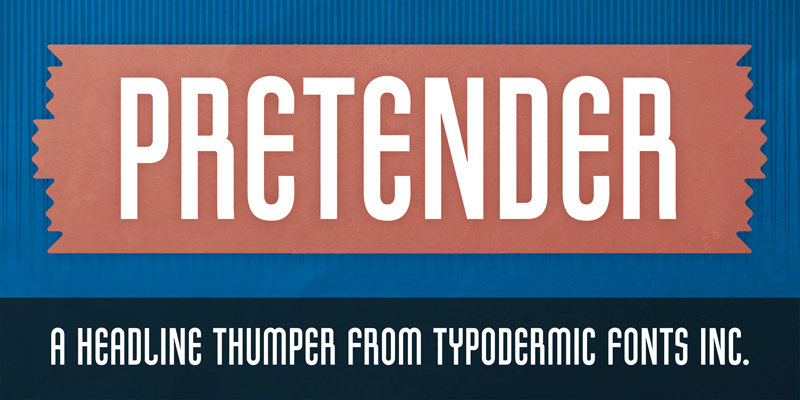
Font name: | Pretender |
Pretender is a narrow Art Deco headline font inspired by the sheet music cover from an early 20th Century waltz ballad, Mexicali Rose. This font includes a license that allows free commercial use: sometimes referred to as a desktop license. This allows you to install the font on a computer and use it to create posters, web graphics, game graphics, t-shirts, videos, signs, logos and more. Read the license agreement for details. If you'd like to embed this font in an app, ebook, on the web or anything that's not covered by the desktop license agreement, visit the link below. You'll find distributors who offer different types of licenses or you can contact me for help. http://typodermicfonts.com/pretender/ |